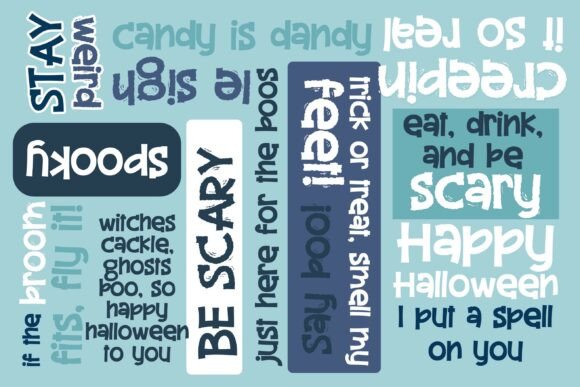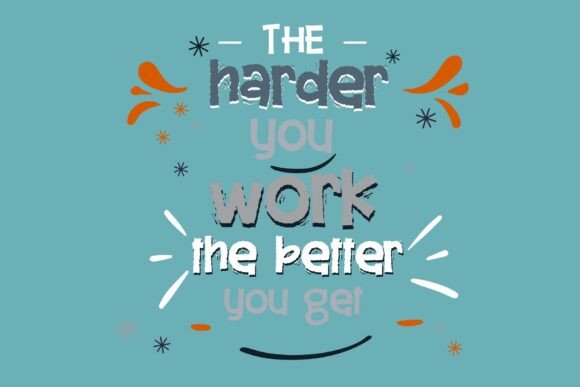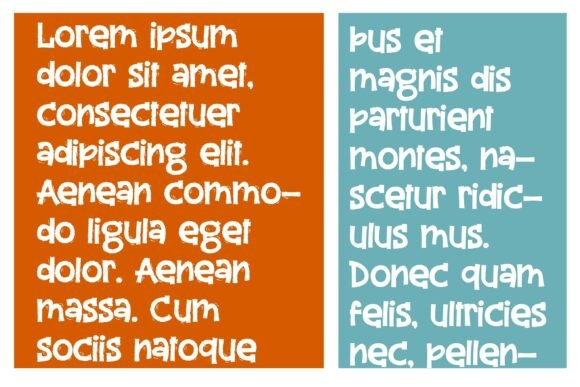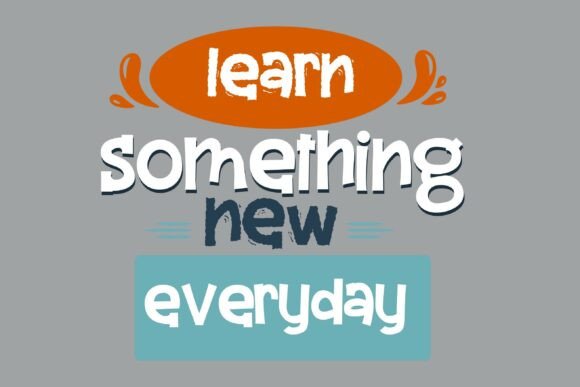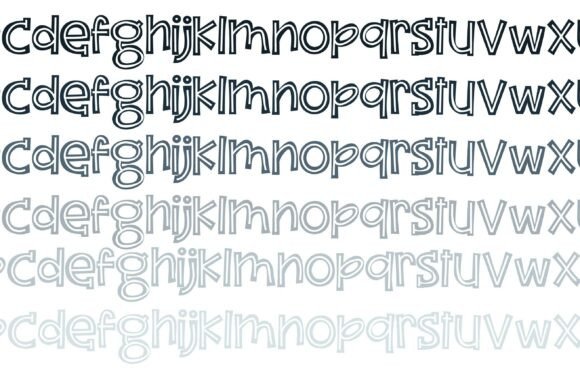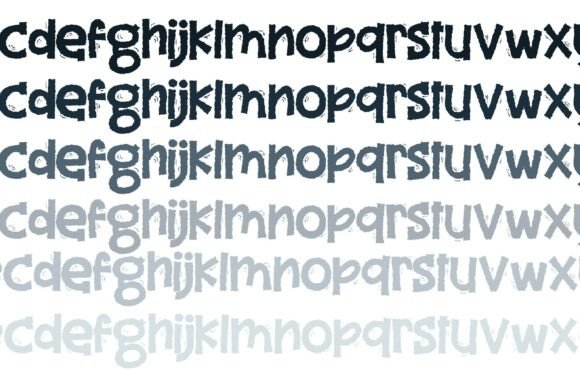
Introduction to Peaberry Scary Trio Font
Peaberry Scary Font Trio is a spooky and playful collection of three coordinating fonts that are perfect for Halloween fun.
This frightened font family includes Peaberry Scary (a bold, rough-edged display font with creepy vibes), Peaberry (a clean, friendly version great for contrast), and Peaberry Inline (a stylish outlined version for extra pop) Whether youโre designing Halloween invitations, trick-or-treat signs, party printables, spooky shirts, or social posts, this trio gives you a cohesive and creative toolkit to mix and match styles.
Key Features of Peaberry Scary Trio Font
Why Choose Peaberry Scary Trio Font?